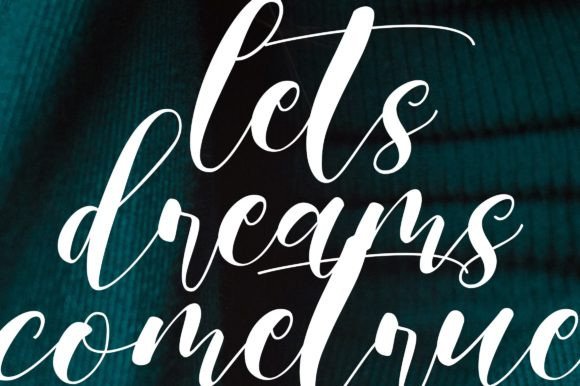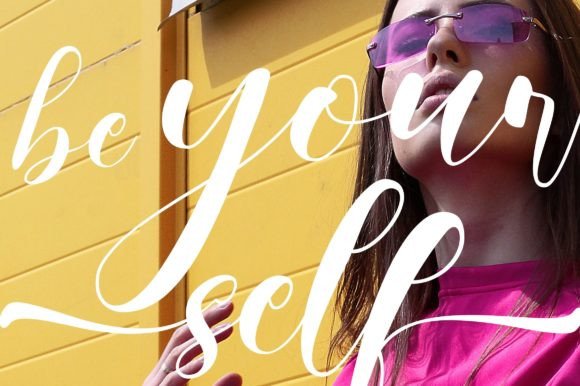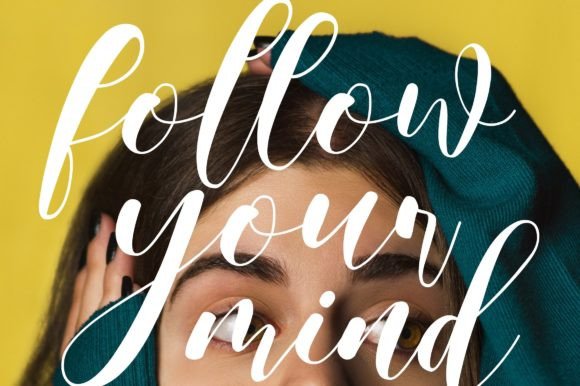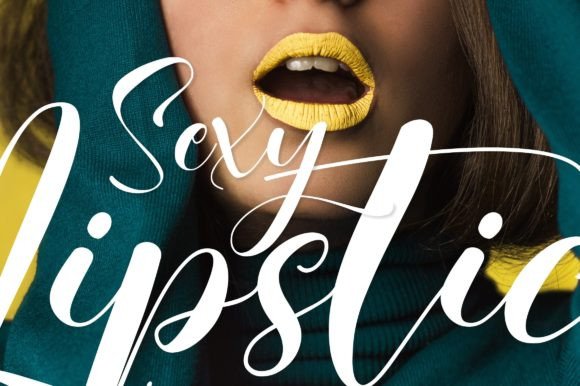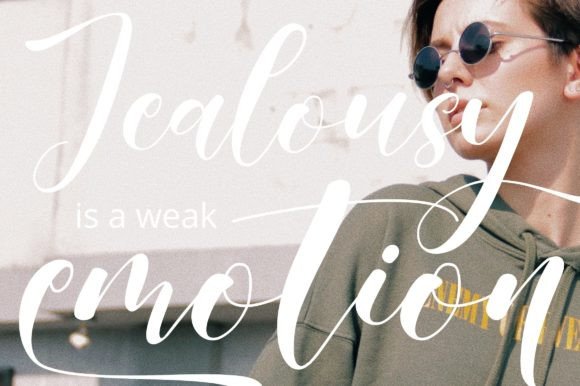
Sunday Font
About Sunday Font
Energize your designs with the vibrant aura of the Sunday font. This typeface seamlessly blends classic vintage style with a contemporary script, creating a delightful and playful combination. The infusion of whimsy and fun makes Sunday a versatile choice for a wide range of design projects.
By combining classic vintage elements with modern script fonts, Sunday strikes a perfect balance that appeals to a diverse audience. The result is not only visually appealing but also exudes a sense of charm and sophistication. The versatility of new script fonts like Sunday offers a plethora of stylistic alternatives, enabling designers to unleash their creativity and experiment with various design elements.
Whether you’re working on branding, marketing materials, or any creative endeavor, Sunday injects a bright energy that captivates attention. Its playful nature makes it suitable for projects that require a touch of personality and flair. The mix of classic and modern elements allows Sunday to transcend design boundaries, making it compatible with any major design program.
This font is not just a typographic choice; it’s a design tool that can elevate a variety of projects. From logos to promotional materials, Sunday brings a refreshing and dynamic quality that sets your designs apart. Its adaptability allows for diverse applications, ensuring that the font can be seamlessly integrated into your creative process.
In summary, Sunday is more than just a font; it’s a design asset that brings bright energy to any project. Whether you’re aiming for a classic vintage vibe or a more modern and playful feel, Sunday’s mix of styles allows for endless creative possibilities. Embrace this typeface to infuse your designs with a sense of whimsy and fun, unlocking stylistic alternatives that resonate with the vibrant spirit of your creative vision.